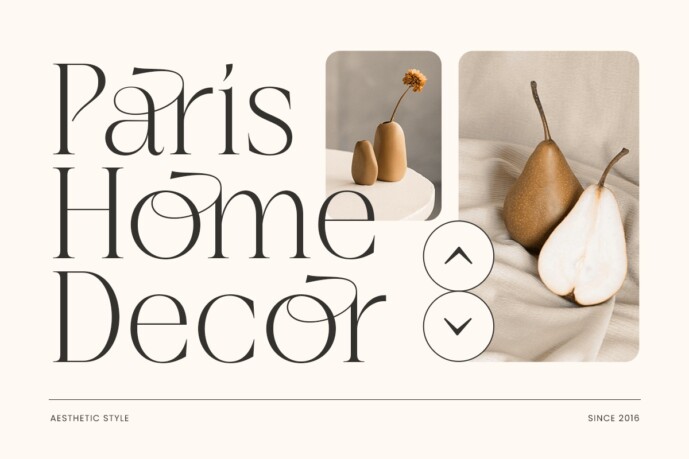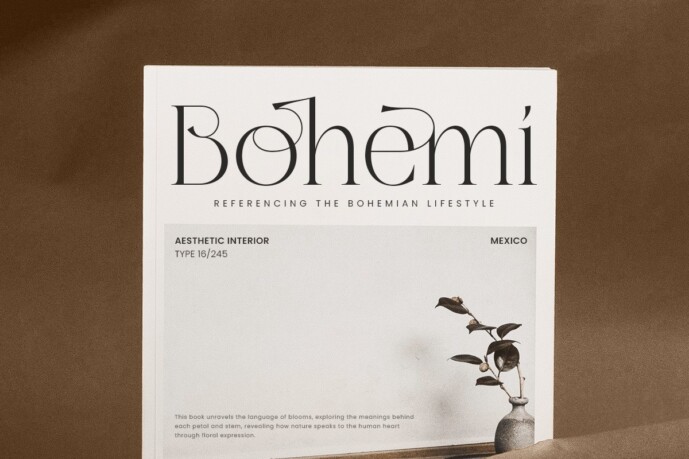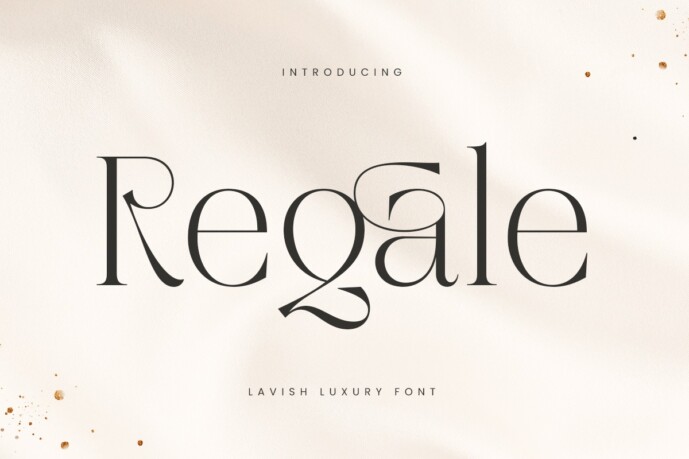
Regale Serif Font
Regale Serif Font is a sumptuous luxury font designed for designers who seek elegance and sophistication in their work. Perfect for high-end brands, logos, invitations, and editorial design, Regale embodies refinement and grandeur. Its graceful curves and luxurious details elevate any project, making it ideal for businesses that value a high-end image.
Drawing inspiration from timeless calligraphy and modern design aesthetics, Regale combines classic elements with a contemporary twist. This unique combination ensures your work captures attention while exuding class. The font’s balanced letters and delicate strokes make it versatile for a variety of creative applications, from fashion magazines to exclusive event promotions.
Choose Regale to make your design stand out with unmatched luxury. It’s not just a typeface; it’s a centerpiece that complements and enhances any project, bringing a touch of elegance and sophistication to your visual communication.